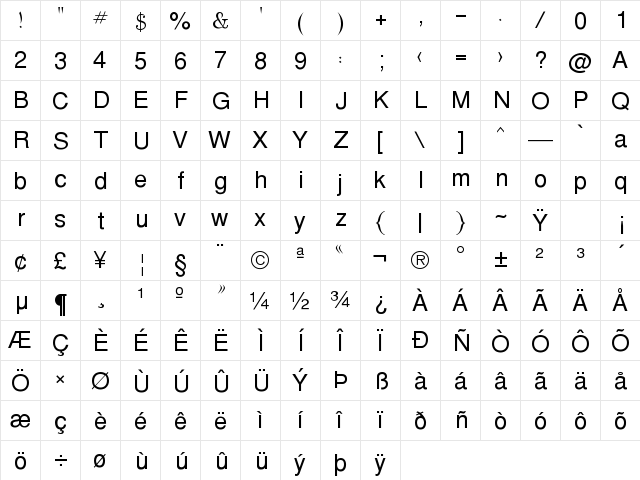
WinSoft Naskh Pro Light
| Foundry | WinSoft S.A. |
| Designer | Mourad Boutros |
Design Context for WinSoft Naskh Pro Typeface
WinSoft Naskh Pro offers clean, dependable letterforms without strong stylistic allegiance, making it a practical choice for designers who need flexibility. Its slender proportions lend an understated elegance to any composition.
Pro Tip: Use WinSoft Naskh Pro in both headline and body roles to test its range before committing to a single application.